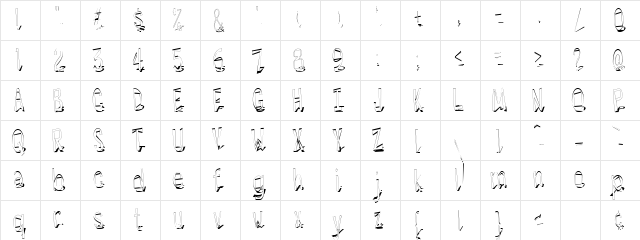
Hesitant Shadow Normal
Design Context for Hesitant Shadow Typeface
Hesitant Shadow brings ornamental detail and strong personality to headlines and identities, where visual impact matters more than quiet functionality.
Font Pairing: Pair with a clean neutral sans-serif for body copy to let Hesitant Shadow's character lead without overwhelming the composition.
Pro Tip: Use Hesitant Shadow exclusively at display sizes — it was designed to be seen, not read at length. Let a neutral companion handle body copy.